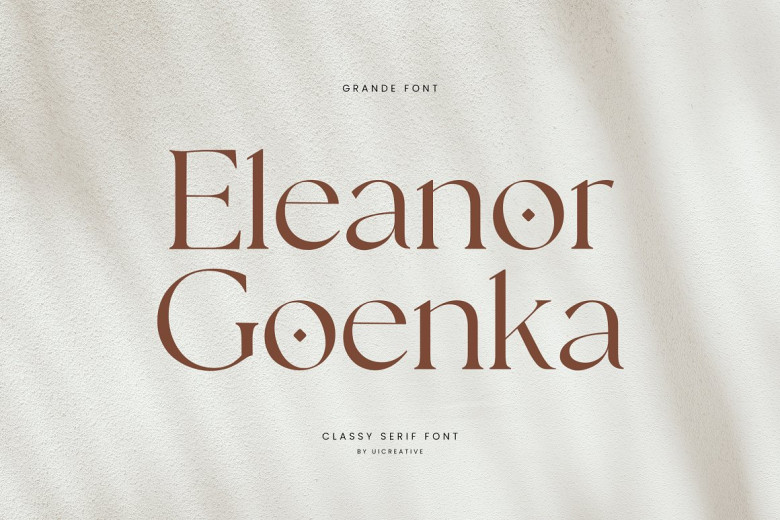
Eleanor Goenka Font
Eleanor Goenka is a graceful serif font that feels so graceful, elegant and modern. A variety of projects, as signature, stationery, logo, wedding, typography quotes, magazine and book covers, website headers, clothing, branding and packaging design. You could just go on.
Eleanor Goenka Serif Font